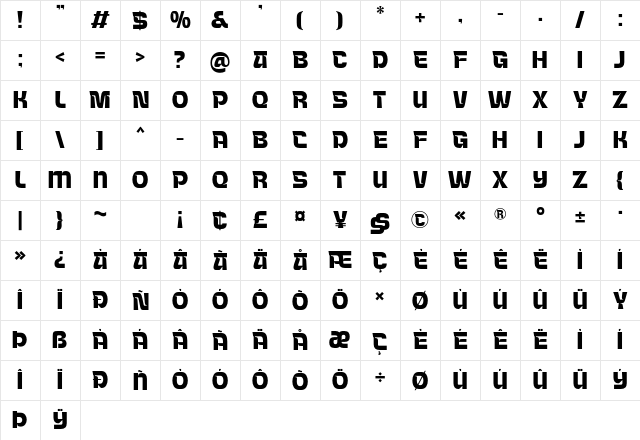
Baku Gym - Demo Version Regular
Foundry: Nirmana Visual
Designer: Sigit Dwipa Raharjo
Design Context for Baku Gym - Demo Version
Baku Gym - Demo Version is a composed and adaptable typeface that performs quietly and consistently across a wide range of design contexts.
Who designed the Baku Gym - Demo Version Regular font?
This font was published by Nirmana Visual. Check the technical specs section for copyright and designer details.